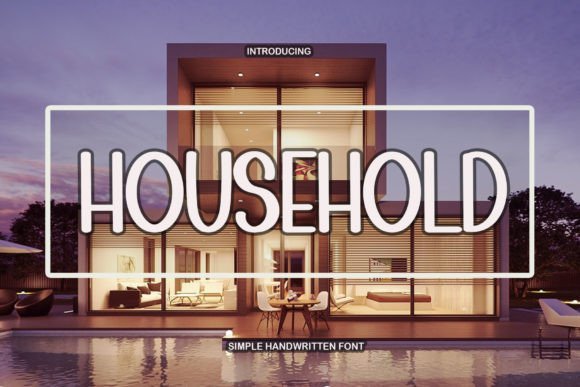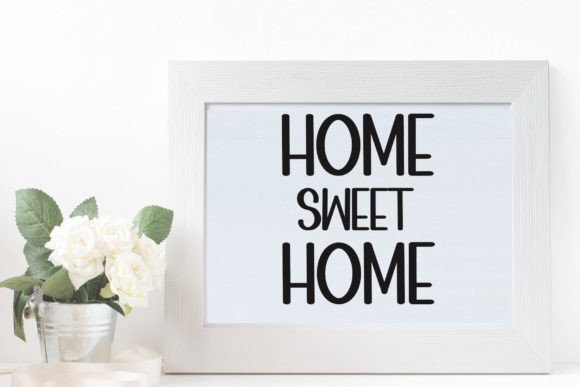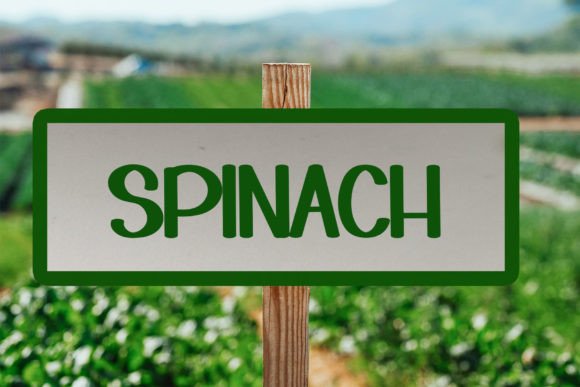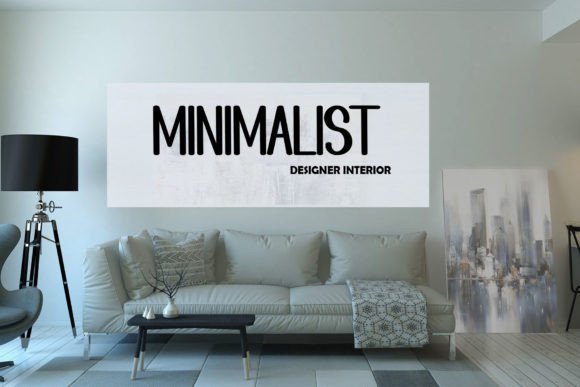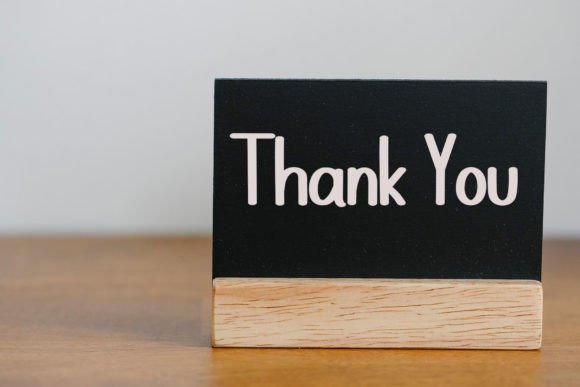
The Perfect Companion for Your Creative Projects
Remember that moment when you were brainstorming a new project, and everything just came together in perfect harmony? The idea was flowing, the design was taking shape, and you knew exactly what you wanted to create. That’s the magic of bringing a project to life. And, let’s be honest, it’s not just about the idea itself, but also about the tools you use to bring it to life.
That’s where the Household Font comes in – a delicate, elegant, and flowing display font that adds a touch of sophistication to any design. With its beautiful and well-balanced characters, it’s the perfect companion for designers looking to elevate their creations. Whether you’re working on a logo, a poster, or a website, Household Font is the perfect addition to your toolkit.
With its versatility and timeless charm, Household Font is a valuable asset for designers. It’s a font that will make your ideas come alive and leave a lasting impression on your audience.
Household Font Key Features
- Font Family: Household Font is a sans-serif font family designed for use in digital and print media.
- Font Sizes: Available in multiple weights, ranging from Light (100) to Extra Bold (800), providing flexibility for various design applications.
- Unique Characteristics: Household Font features a clean, modern aesthetic with subtle rounded edges and a friendly feel, making it ideal for use in branding, advertising, and editorial content.
- Language Support: Supports a wide range of languages, including Latin, Cyrillic, and Greek scripts, making it a versatile choice for global design projects.
Household Font Review
When I first laid eyes on the Household Font, I was immediately drawn in by its playful, casual vibe ✨. It’s perfect for creating a friendly, approachable atmosphere in any design project. The font’s rounded edges and soft curves make it feel approachable and inviting.
The font is also highly versatile, working well in a variety of contexts, from logos and branding to social media graphics and web design ✨. I’ve found it particularly effective in creating a sense of warmth and personality in designs.
- Playful, casual vibe ✨
- Highly versatile
- Perfect for creating a friendly, approachable atmosphere
- Can appear childish or immature in certain contexts ⚠️
- Not suitable for formal or professional designs
Overall, I’m a big fan of the Household Font. While it may not be the best choice for every design project, it’s a great option for creating a friendly, approachable atmosphere. With a little bit of care and consideration, it can add a lot of personality to your designs.
Household Font is versatile and can be used for a variety of projects, including:
- Print materials, such as business cards and brochures
- Digital graphics, such as social media graphics and presentations
Alternatives to “Household Font” for Designers
Inter Font is a modern sans-serif font designed for digital use. It’s suitable for body text and headings in web and mobile applications. Inter Font has a clean and neutral appearance, making it a great choice for user interfaces. Compared to Household Font, Inter Font has a more geometric and precise feel, while Household Font has a more rounded and friendly appearance.
Montserrat Font is a sans-serif font inspired by urban typography. It’s ideal for headings and titles in web and print designs. Montserrat Font has a strong and geometric feel, making it a great choice for bold statements and titles. Compared to Household Font, Montserrat Font has a more dramatic and attention-grabbing appearance, while Household Font is more subtle and versatile.